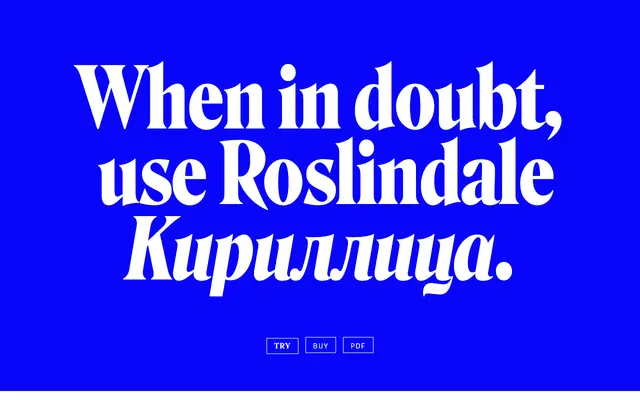
Roslindale Cyrillic
David Jonathan Ross · Jovana Jocić
A Cyrillic extension of Roslindale drawn by Jovana Jocić, carrying the family's characteristic tension between sharp serifs and round forms into Russian, Bulgarian, Serbian and Ukrainian.
Serbia-based type designer Jovana Jocić adapted DJR's Roslindale for the Cyrillic script, preserving the interplay of spiky serifs and bulbous curves that defines the Latin original. The family covers Text and Display Condensed optical styles, spans eight weights from Extra Light to Ultra with matching italics, and includes Bulgarian and Serbian alternates. Both Latin and Cyrillic scripts are included in a single package, with a variable font also available.
A Cyrillic extension of Roslindale, which builds on De Vinne, a quirky 1892 oldstyle serif. The design carries forward Roslindale's tension between sharp pointy serifs and bulbous round shapes into the Cyrillic script.